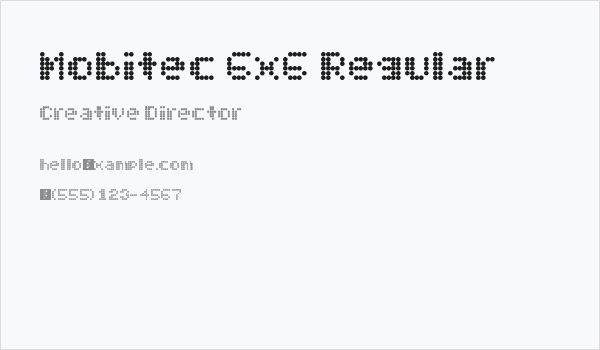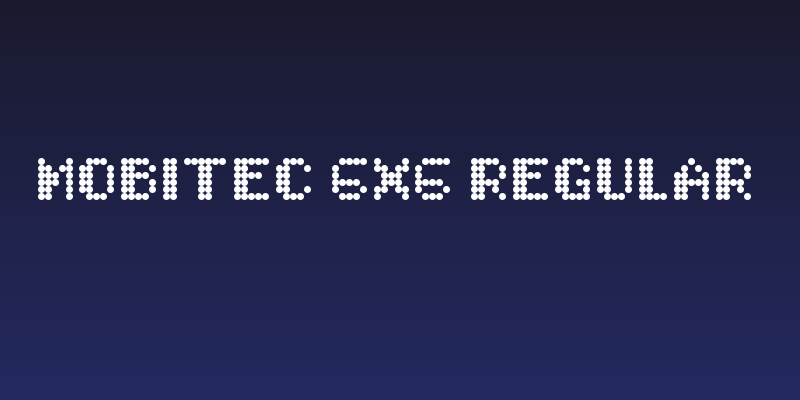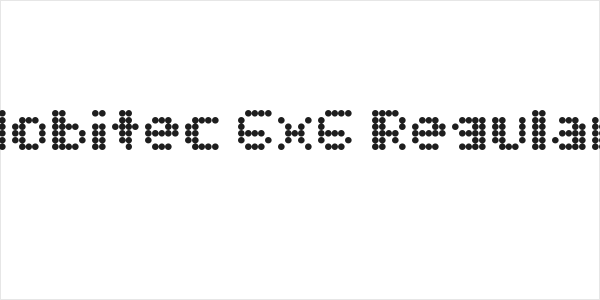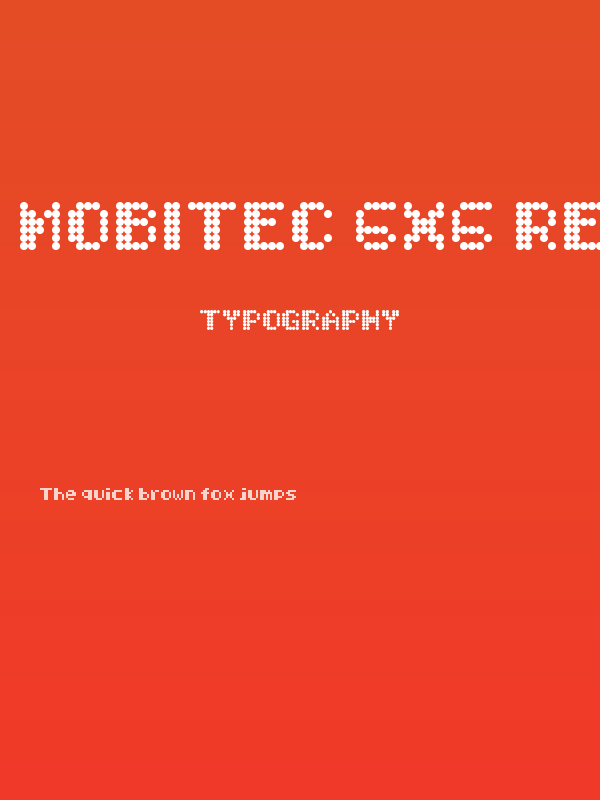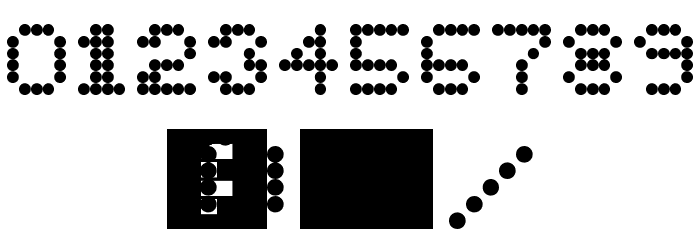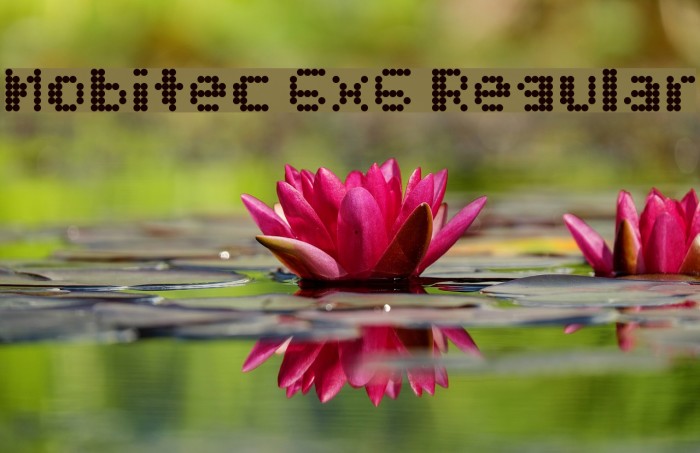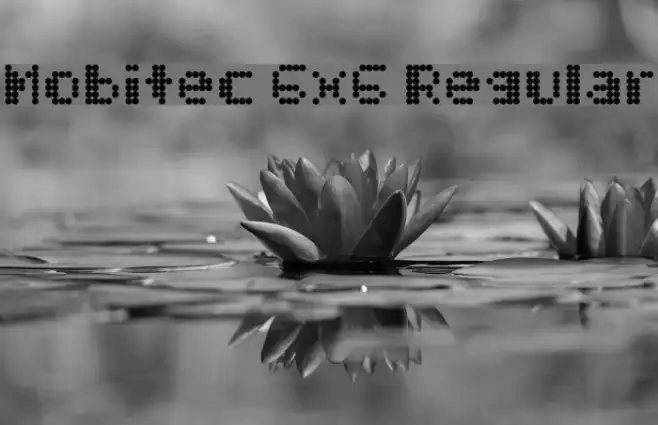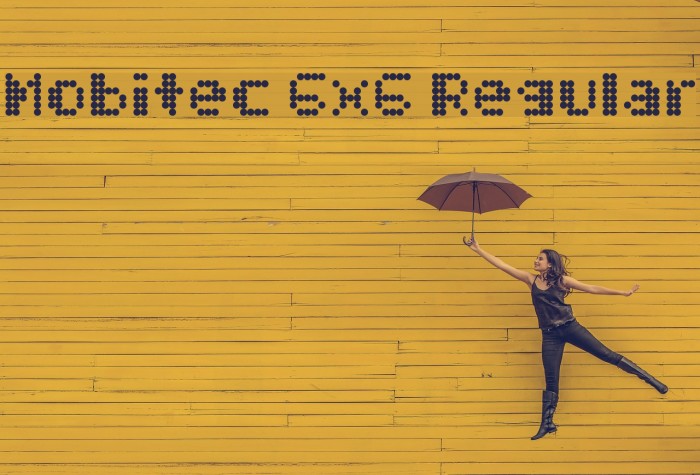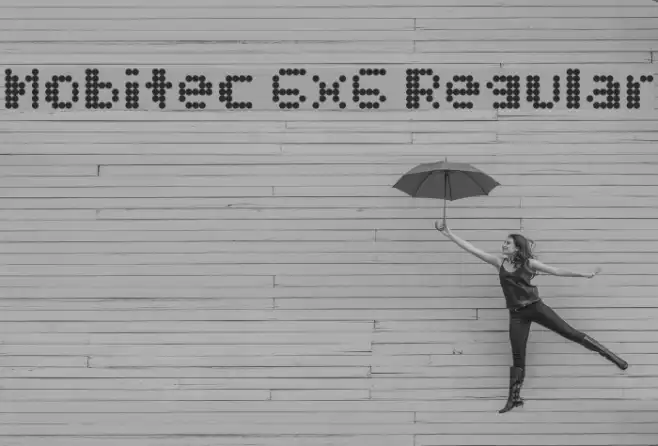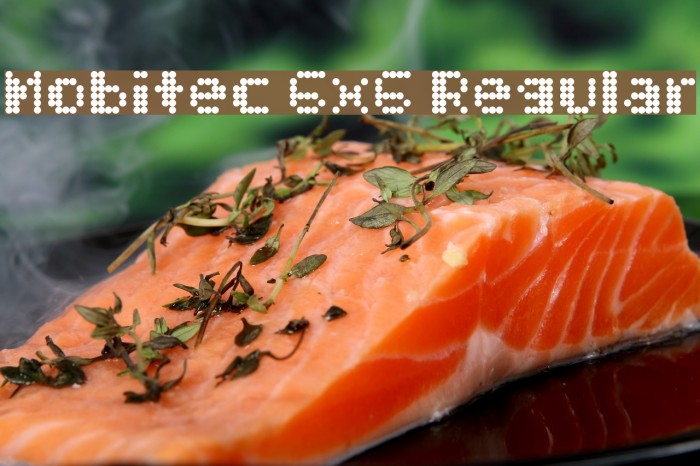
Mobitec 6x6 Regular Font
Mobitec 6x6 Regular Description
This font features a unique dot matrix style, where each character is composed of a grid of dots. The design is reminiscent of digital displays and old-school LED screens, giving it a retro and technological feel. The characters are evenly spaced, with a consistent pattern that ensures readability despite the unconventional style. This font is particularly effective for creating a vintage or tech-inspired aesthetic, making it ideal for projects that aim to evoke nostalgia or a sense of digital innovation.
| Overall Style | Retro, Technological |
| Use Case | Headlines, Logos, Digital Displays |
| Proposed Projects | Ideal for digital-themed designs, retro video game graphics, tech event posters, and any project seeking a vintage digital look. |